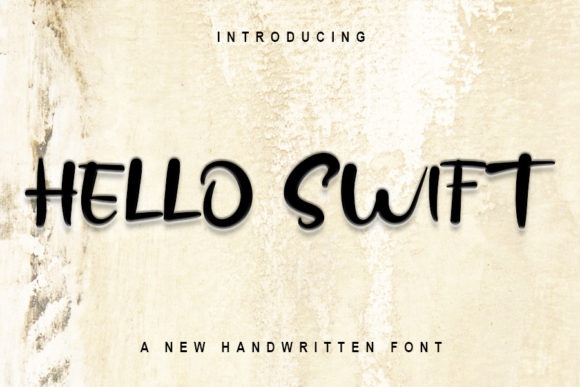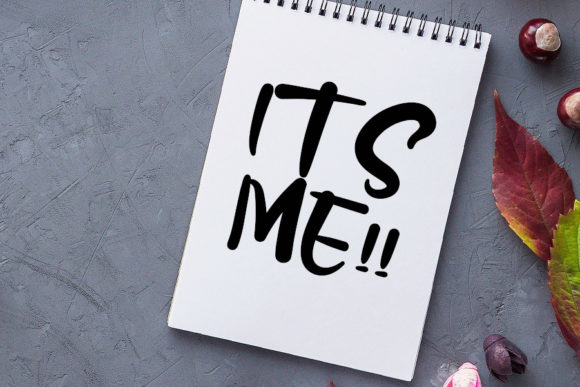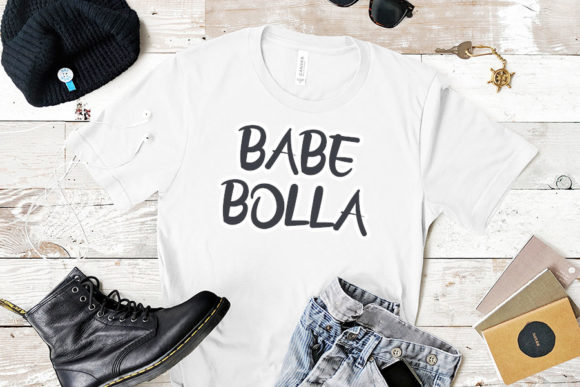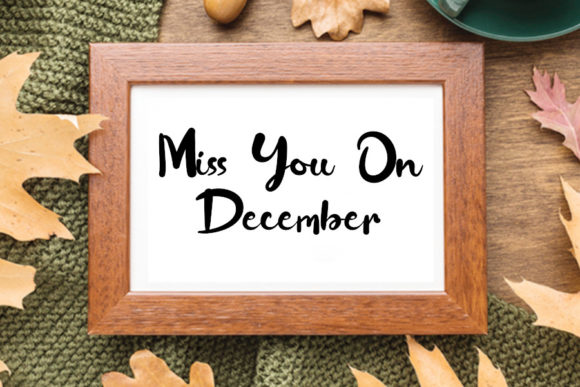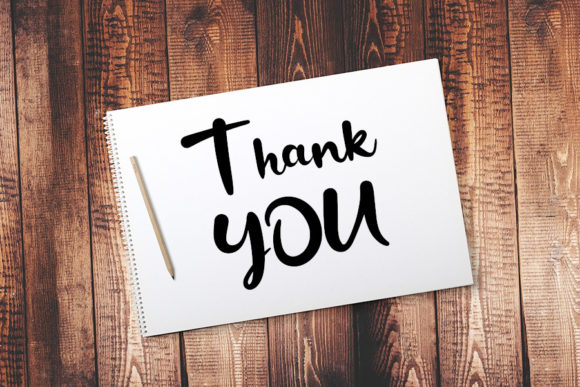
Introduction to Hello Swift Font
Have you ever stared at a blank page, waiting for that perfect spark of creativity to ignite your next design project? For many of us, it’s the small details that make all the difference. The right font can elevate a design from mundane to magical, and that’s where the Hello Swift Font comes in – a masterfully crafted handwritten font that’s about to become your new best friend.
Designed to evoke the classic calligraphy of the past while feeling refreshingly modern, the Hello Swift Font is a true gem for any designer. Whether you’re working on a high-end branding project or a free downloadable design resource, this exquisite font is sure to bring your creative vision to life with its high-quality, transparent background, and effortless style.
Key Features of Hello Swift Font
- High-quality design: Hello Swift Font offers a premium look and feel for your creative project, making it a great addition to any design resource.
- Unique characteristics: The Hello Swift Font features a unique blend of modern and vintage elements, making it a standout design resource.
Honest Review: Hello Swift Font
As a designer, I’m always on the lookout for high-quality design resources that can elevate my creative projects. Recently, I had the chance to try out the Hello Swift Font, and I’m excited to share my honest review.
- What works well: ✨ The font has a transparent background, making it easy to use with various design elements. I also appreciate the font’s clean and modern aesthetic.
- What works well: ✨ The font is available in a variety of weights and styles, giving designers a lot of flexibility when it comes to choosing the perfect look for their project.
Overall, I’m really impressed with the Hello Swift Font. It’s a high-quality design resource that’s perfect for creative projects. While there are some limitations to consider, I think the font is well worth checking out. Whether you’re a seasoned designer or just starting out, the Hello Swift Font is definitely worth adding to your design arsenal.
The Hello Swift Font is perfect for a variety of creative projects, including:
- Graphic design and branding
- Marketing materials and flyers